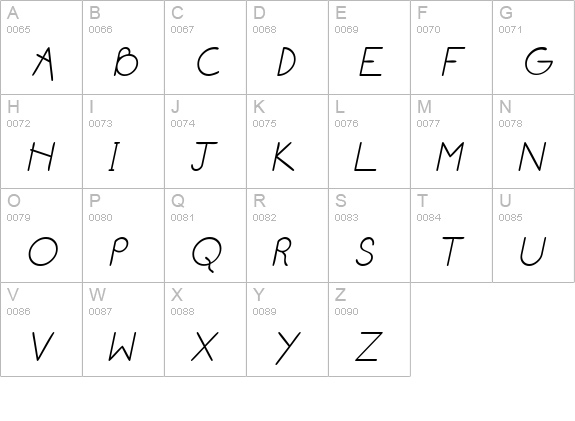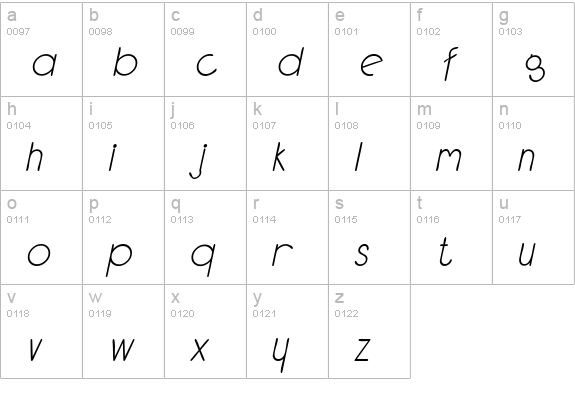
Blarney Italic Font Details
Blarney Italic is a distinctive, italic variant in the Blarney typeface family \xE2\x80\x94 well suited to design and typography projects.
Blarney Italic font is a beautifully crafted typeface that exudes elegance and sophistication. Its sleek and stylish design is perfect for adding a touch of class to any project. The italicized characters of Blarney Italic font bring a sense of fluidity and grace to your text, making it ideal for use in invitations, logos, and other design projects where a touch of sophistication is desired. What sets Blarney Italic font apart is not only its stunning aesthetics but also the fact that it is available for free download at FontsMarket.com. This means that you can easily access and use this exquisite font without any cost, making it a truly valuable addition to your font collection. Whether you're looking to elevate your design projects with a touch of elegance or simply want to add a touch of sophistication to your text, Blarney Italic font is the perfect choice. Download it for free today at FontsMarket.com and start creating stunning designs with this versatile and stylish typeface.